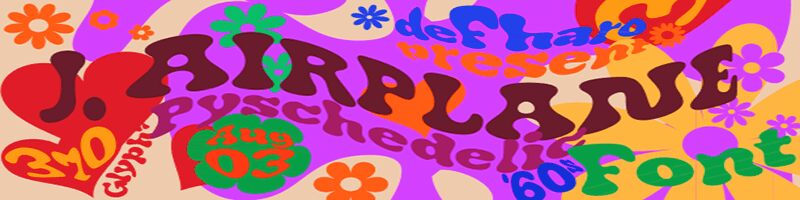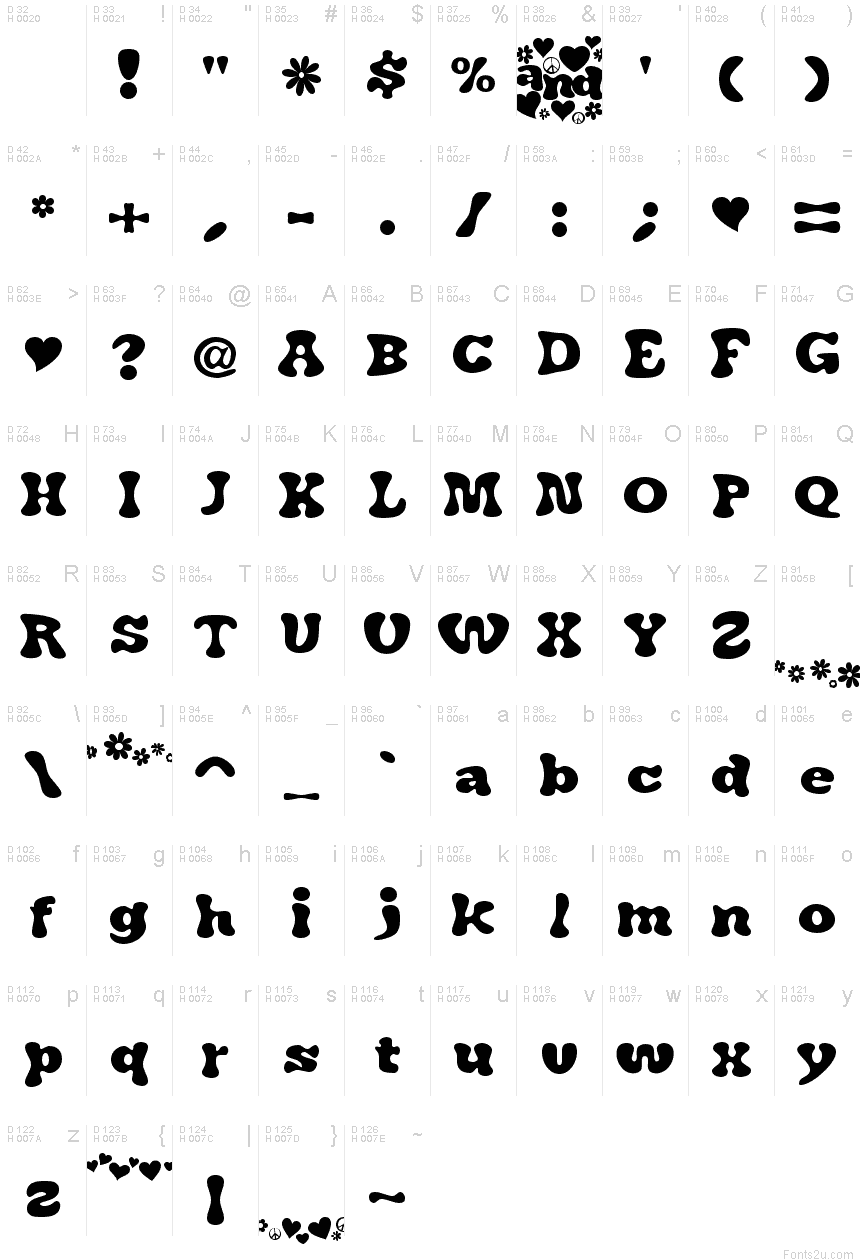
J. Airplane Swash by deFharo is a free cartoon display font with broad, bulbous letters and a distinctly 1970s silhouette. Deep scoops, pinched joins, and uneven curves keep the lettering lively.
Its retro pop character suits music posters and record packaging, especially for projects drawing on psychedelic graphics or playful nostalgia. Children's entertainment and casual food branding also make convincing settings, linked by the same soft shapes and slightly unruly movement.
J. Airplane* is a font with swashes. Use the swashes with lowercase letters and the following characters: [] {} # * &. Example: J. A[irplane] Swash}